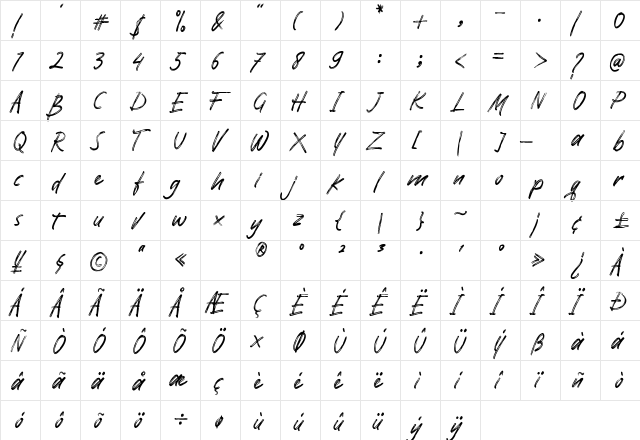
Pomthinq Regular
| Foundry | StringLabs |
| Designer | Virgiawan Listanto |
Design Context for Pomthinq Typeface
Pomthinq is a composed and adaptable typeface that performs quietly and consistently across a wide range of design contexts. The delicate stroke weight brings airiness and refinement to layouts.